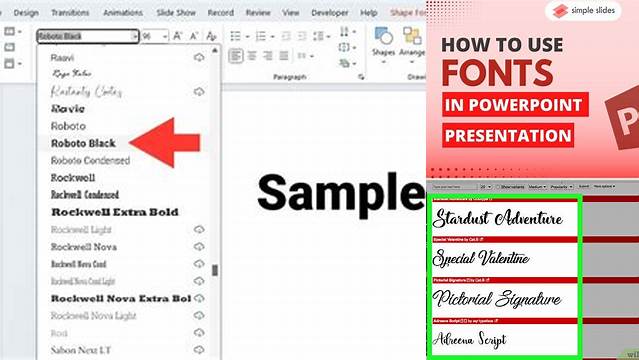
Use DaFont Fonts In PowerPoint: A Step-by-Step Guide
Hey guys! Ever feel like your PowerPoint presentations are looking a little...blah? You know, stuck in the same old font rut? Well, you're in luck! There's a whole world of amazing, free fonts out there just waiting to spice up your slides, and one of the best places to find them is DaFont. In this guide, I'm going to walk you through how to use DaFont fonts in PowerPoint, step by step, so you can take your presentations from drab to fab! Using custom fonts like those found on DaFont can significantly enhance the visual appeal of your presentations. Fonts play a crucial role in conveying the tone and style of your message. A playful font can add a touch of whimsy, while a bold, modern font can project confidence and innovation. By breaking free from the standard PowerPoint font library, you can create presentations that are truly unique and memorable. This detailed guide will cover everything from downloading and installing fonts to troubleshooting common issues and optimizing your presentations for different viewing platforms. We'll also explore font licensing and best practices for font usage in presentations, ensuring that your presentations not only look great but also comply with copyright regulations. So, whether you're a seasoned presenter or just starting out, this guide will equip you with the knowledge and skills to transform your PowerPoint presentations with custom fonts from DaFont.
Why Use DaFont Fonts in PowerPoint?
So, you might be wondering, "Why bother with DaFont fonts at all?" PowerPoint comes with a bunch of fonts already, right? True, but those fonts can get a little...predictable. Using DaFont fonts allows you to inject personality and creativity into your presentations. Think of it like this: your font is the voice of your slides. A bland font is like a monotone speaker – it might get the message across, but it won't keep your audience engaged. DaFont offers a massive library of fonts, ranging from elegant script fonts to bold display fonts and everything in between. This means you can find the perfect font to match the tone and style of your presentation, whether you're giving a formal business presentation or a fun, informal talk. Imagine you're creating a presentation for a children's book. Using a playful, hand-drawn font from DaFont will instantly make your slides more engaging and visually appealing to your young audience. Or, if you're designing a presentation for a tech conference, a sleek, modern font can help convey a sense of innovation and sophistication. Beyond aesthetics, using unique fonts can also help your presentations stand out from the crowd. In a world where countless presentations are given every day, using distinctive fonts can make your slides more memorable and help your message resonate with your audience. However, it's important to use fonts judiciously and ensure they complement your content rather than distract from it. We'll delve into best practices for font usage later in this guide. In short, DaFont offers a treasure trove of fonts that can elevate your PowerPoint presentations from ordinary to extraordinary. By exploring the vast library of fonts available on DaFont and learning how to properly install and use them in PowerPoint, you can create presentations that are both visually stunning and highly effective.
Best Practices for Using DaFont Fonts in PowerPoint
Okay, you've got the fonts installed, you know how to use them, but let's talk about some best practices to make sure your presentations are amazing and not just...well, a font-tastic mess. Using fonts effectively in PowerPoint is crucial for conveying your message clearly and engaging your audience. However, it's easy to get carried away with the vast selection of fonts available and create presentations that are visually overwhelming or difficult to read. These best practices will help you choose and use fonts strategically to enhance the impact of your presentations.
So there you have it, guys! Using DaFont fonts in PowerPoint is a fantastic way to add personality and style to your presentations. By following these steps and best practices, you can create presentations that are both visually stunning and highly effective. Remember to choose fonts wisely, consider your audience, and always check the font license. Now go forth and create some amazing presentations! The world of DaFont fonts offers a vast array of possibilities for enhancing your presentations. By mastering the techniques for installing, using, and troubleshooting these fonts, you can elevate your presentations from ordinary to extraordinary. Remember that fonts are a powerful tool for communication, and by choosing and using them strategically, you can enhance the impact of your message and engage your audience more effectively. Whether you're creating a business presentation, an educational slideshow, or a personal project, the right fonts can make all the difference. So, take the time to explore the DaFont library, experiment with different font pairings, and develop your own unique style for creating visually compelling presentations. With a little practice and attention to detail, you can become a font master and create presentations that truly stand out.